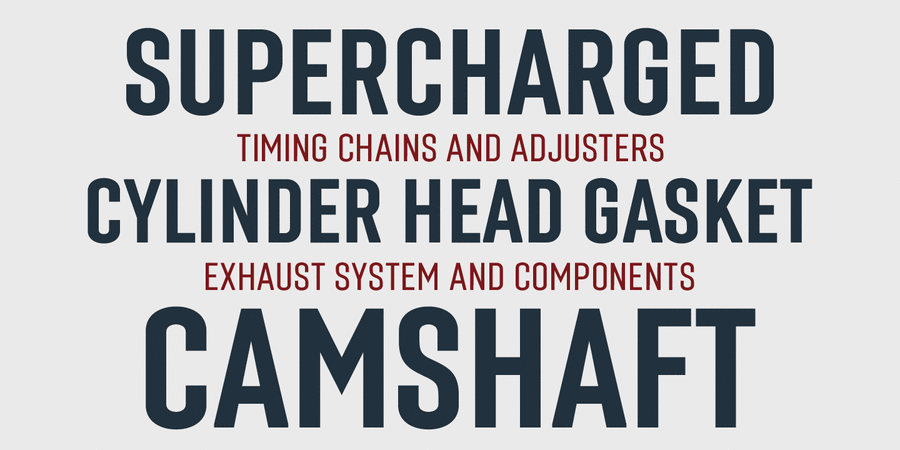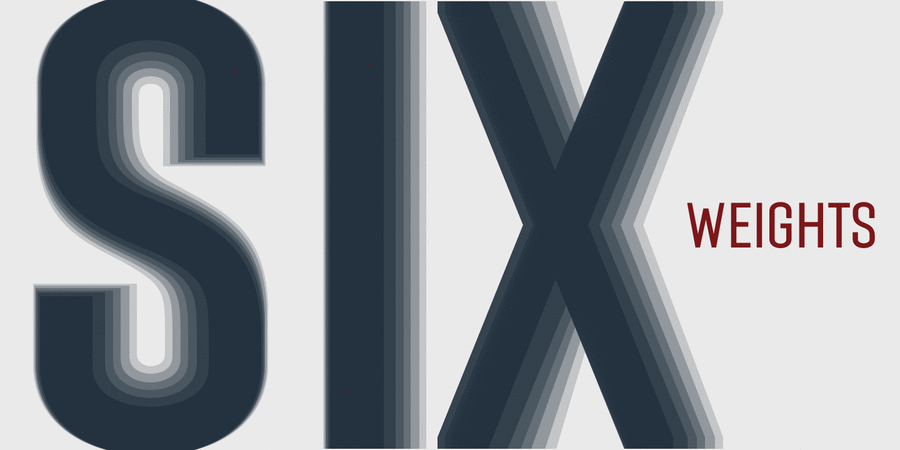
Laqonic is a geometric modular sans serif with a technological character, perfect for signage, logos and headlines. Designed by Sergey Tkachenko at 4th february type foundry in 2014.
Features of font family Laqonic 4FThe hit of the decade:
Associations for font family Laqonic 4FTypeface personality and character:
accurate, flat, convincing, rectangular, stable, solid, serious, reliable, self-assured, strong, industrial, technogenic, static, urban, simple, automatic, urbanistic, steel, robust, strict, modern, monotone, logical, pragmatic, practical, artificial, cold, machine, engineering, motivating, iron, loud, important, slim, tall, expensive, high-quality, cinematic, laconic, schematic, minimalistic, technically, smooth, futuristic, sportive, urgent, authoritative, ambitious, notable, proud, monumental, manly, tough, architectural, responsible, compressed, reputable, powerful, heavy, close-fitting, black